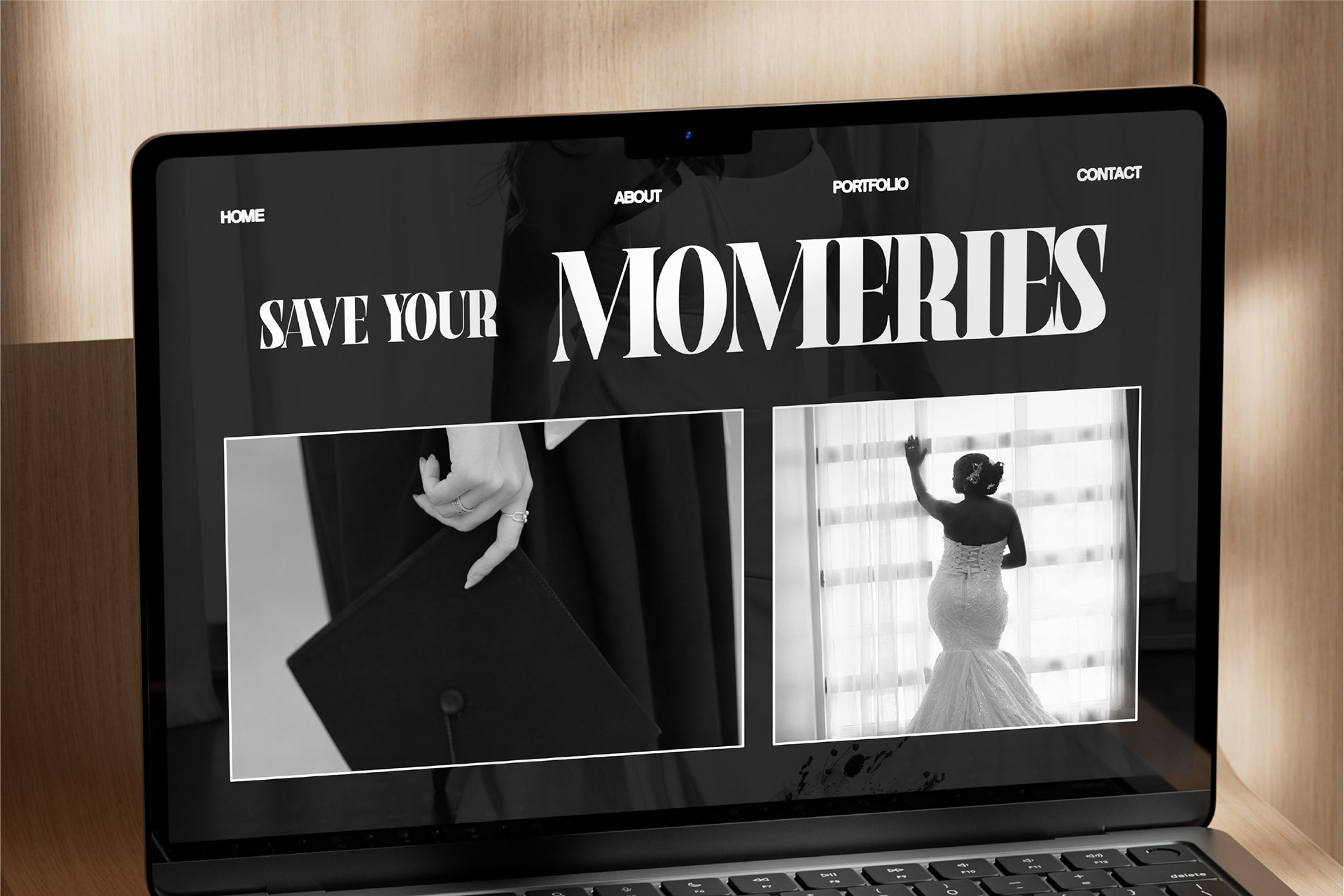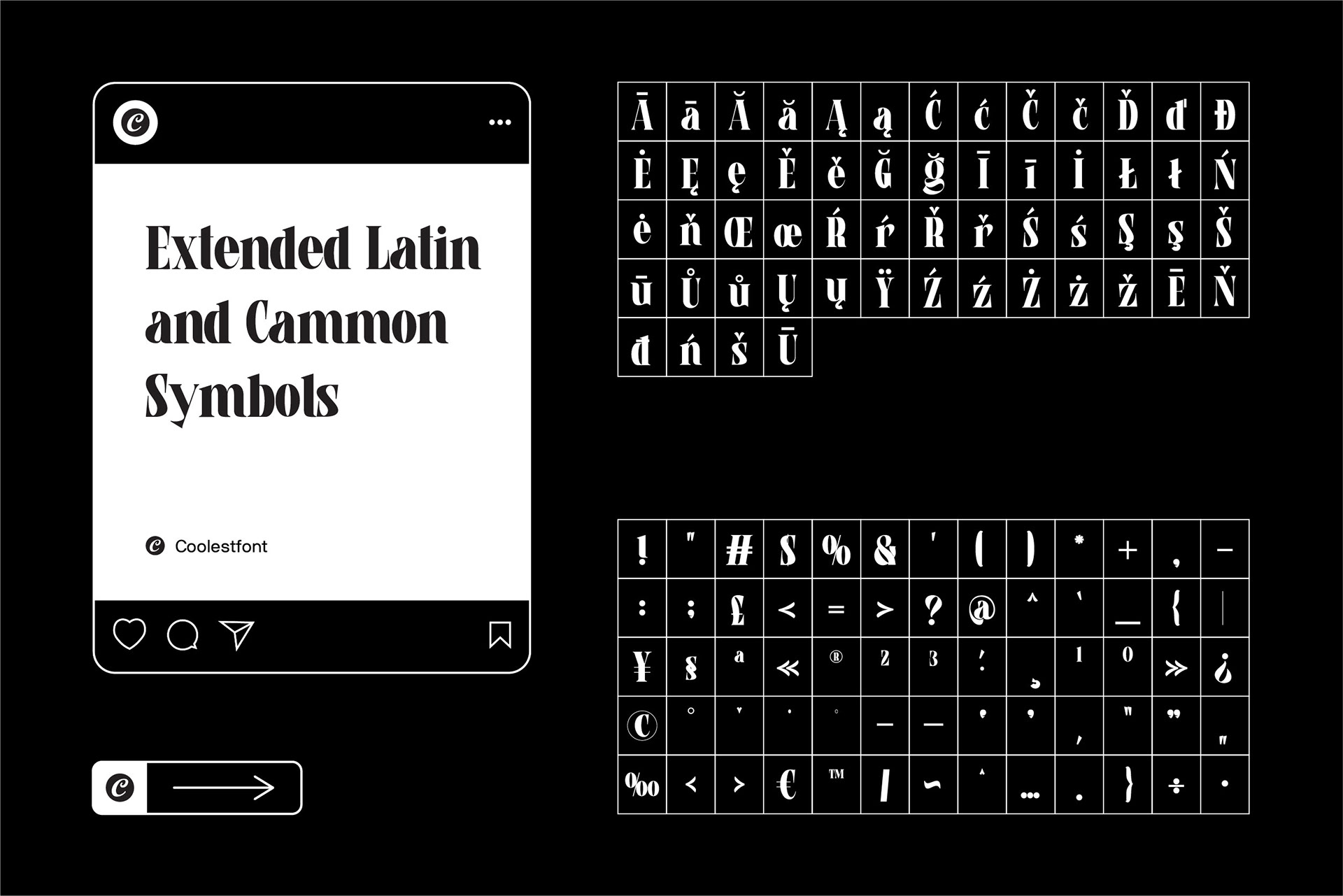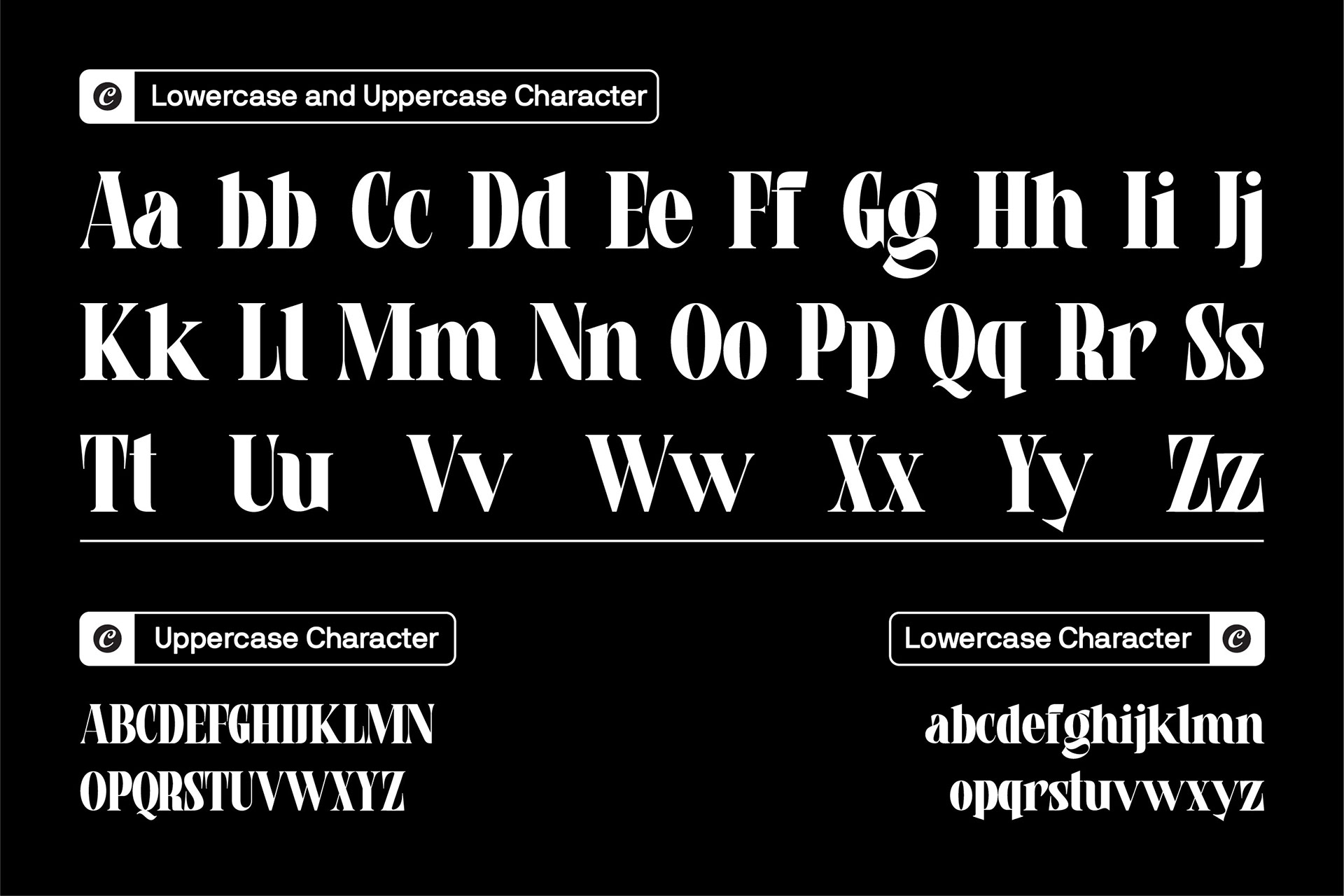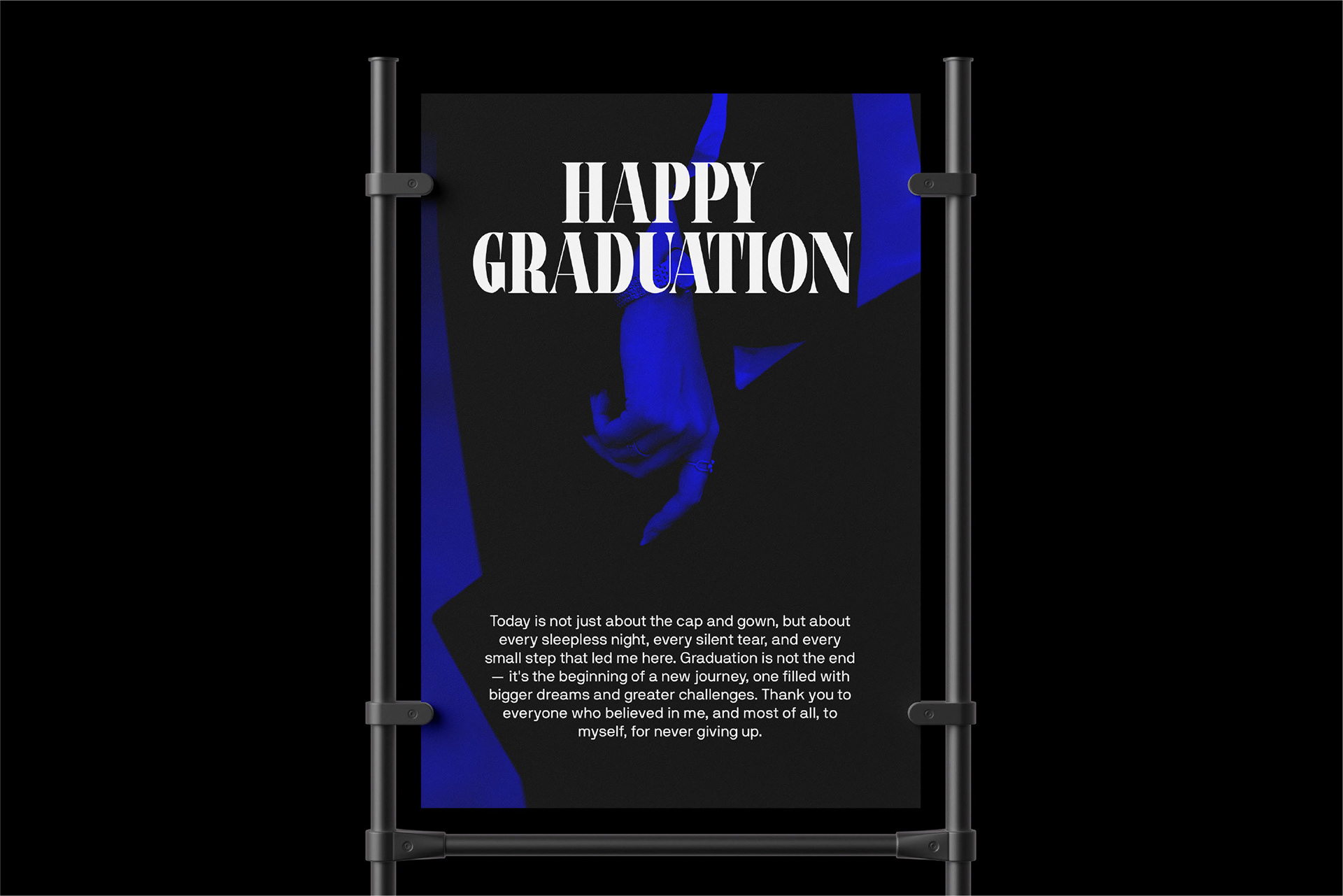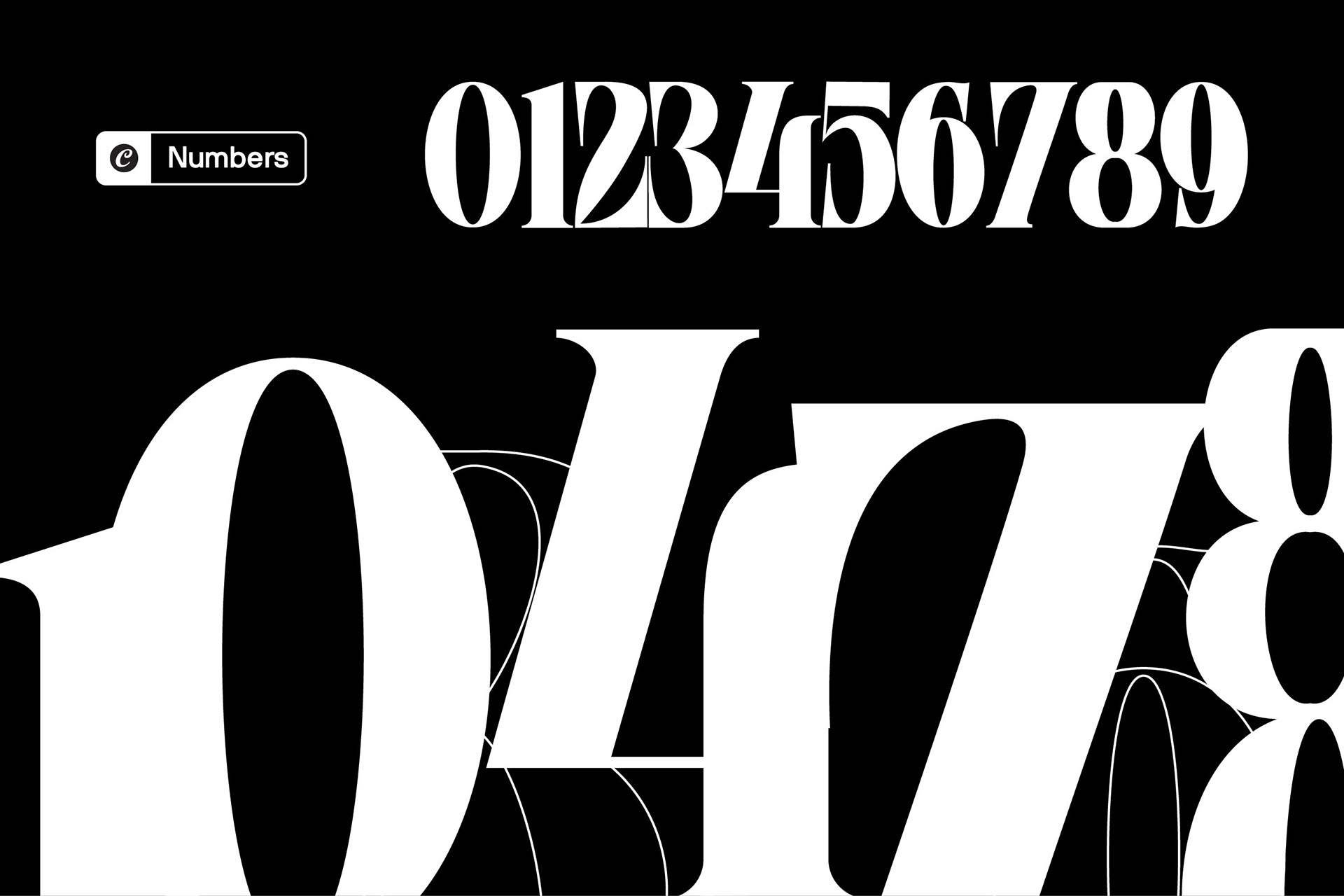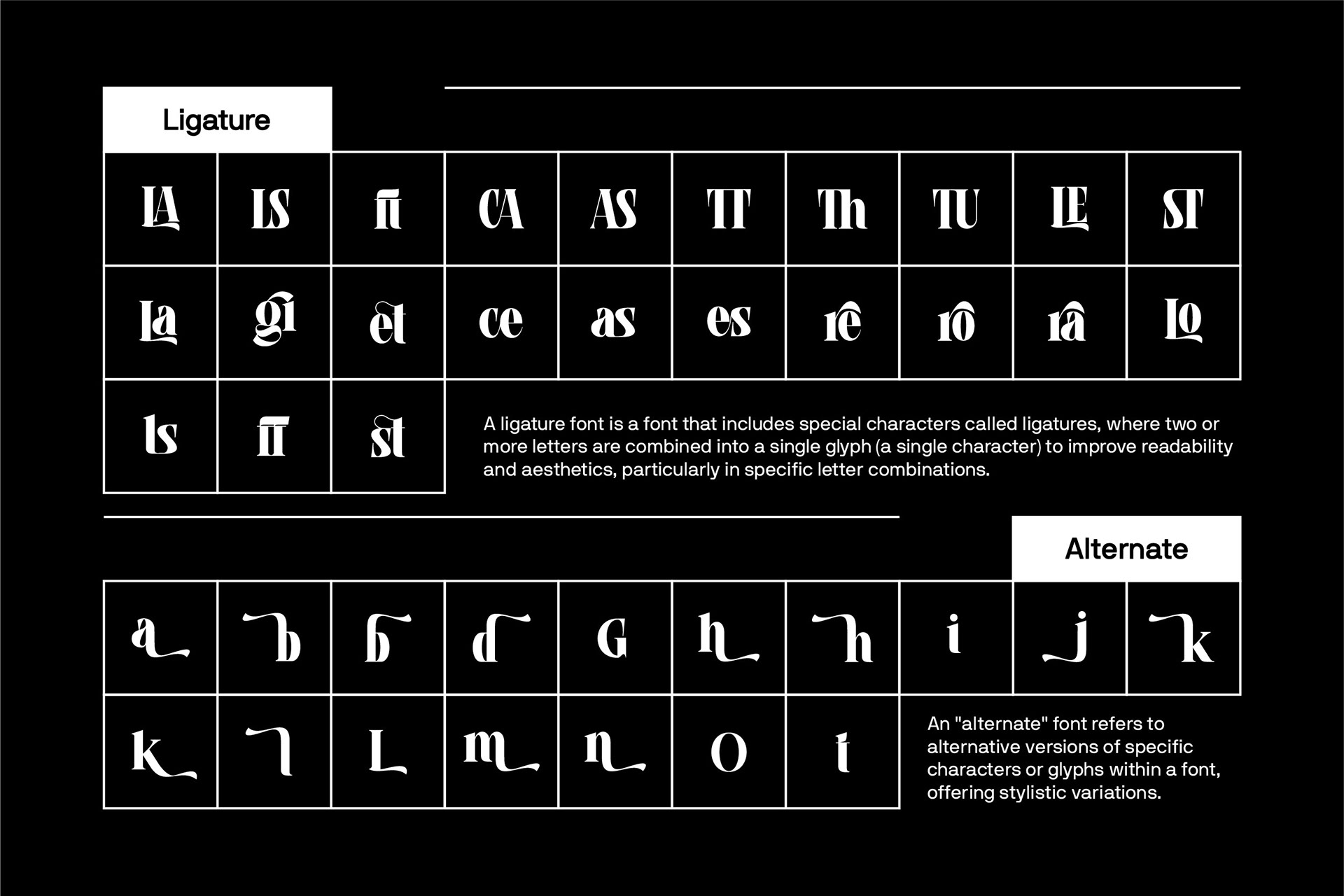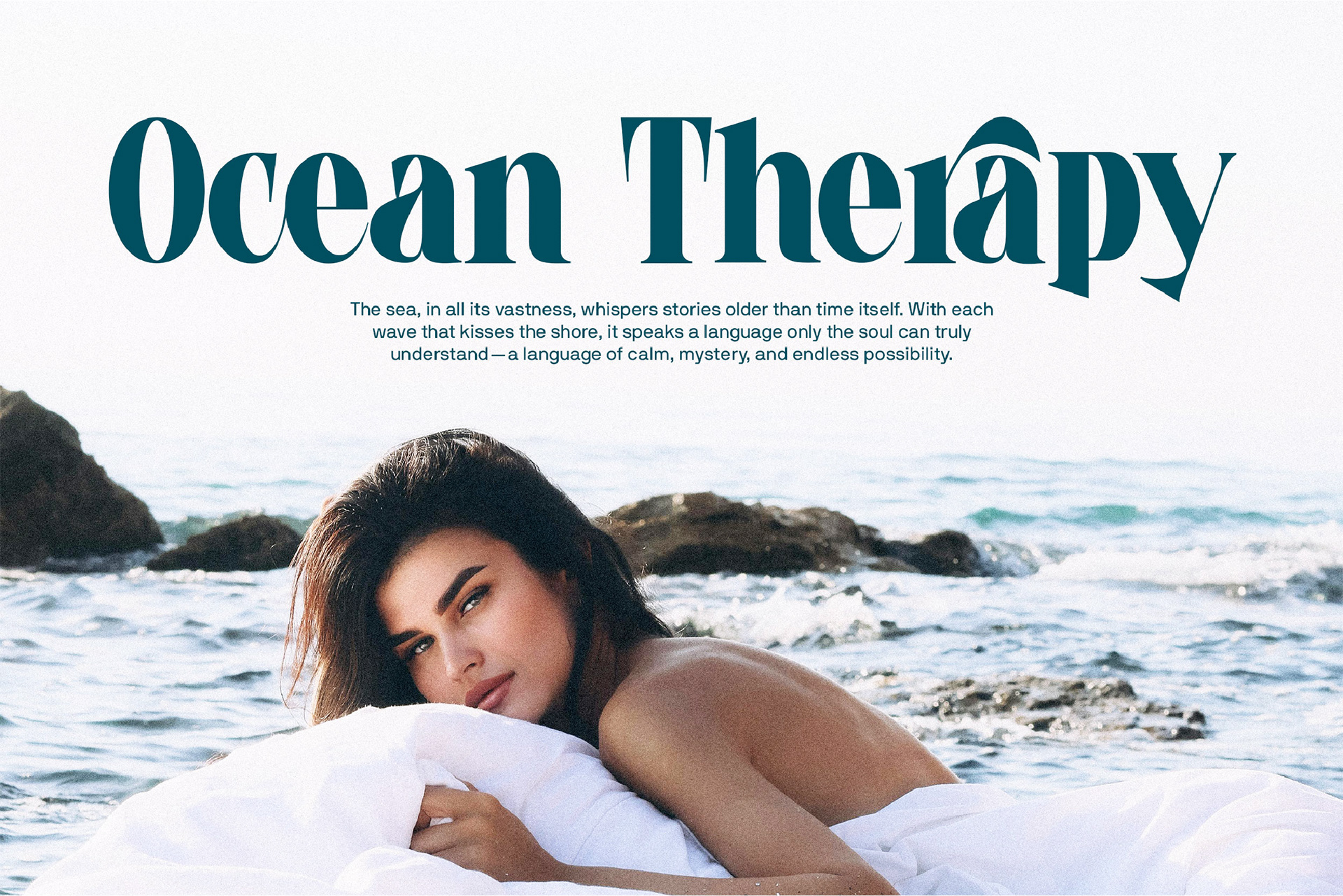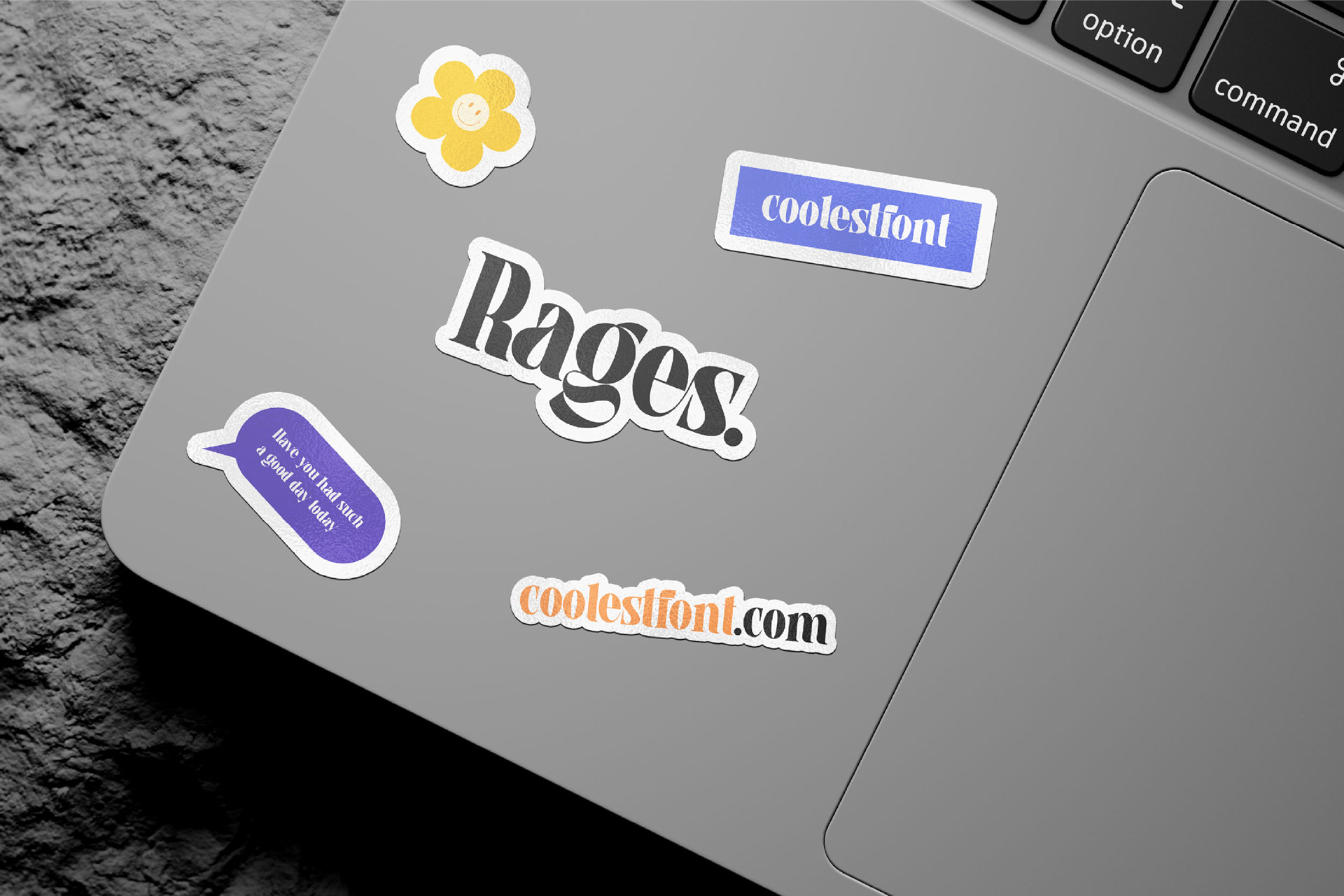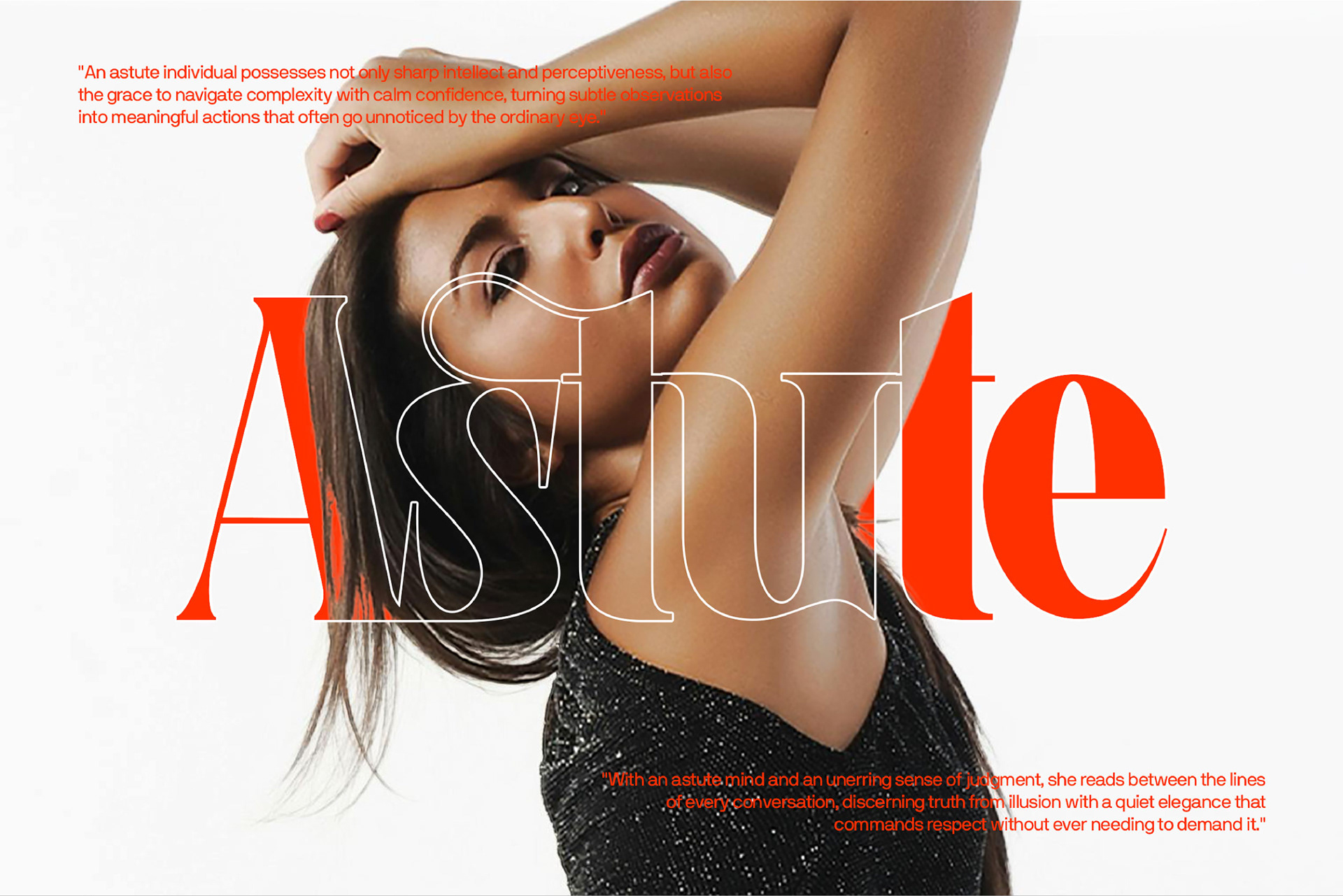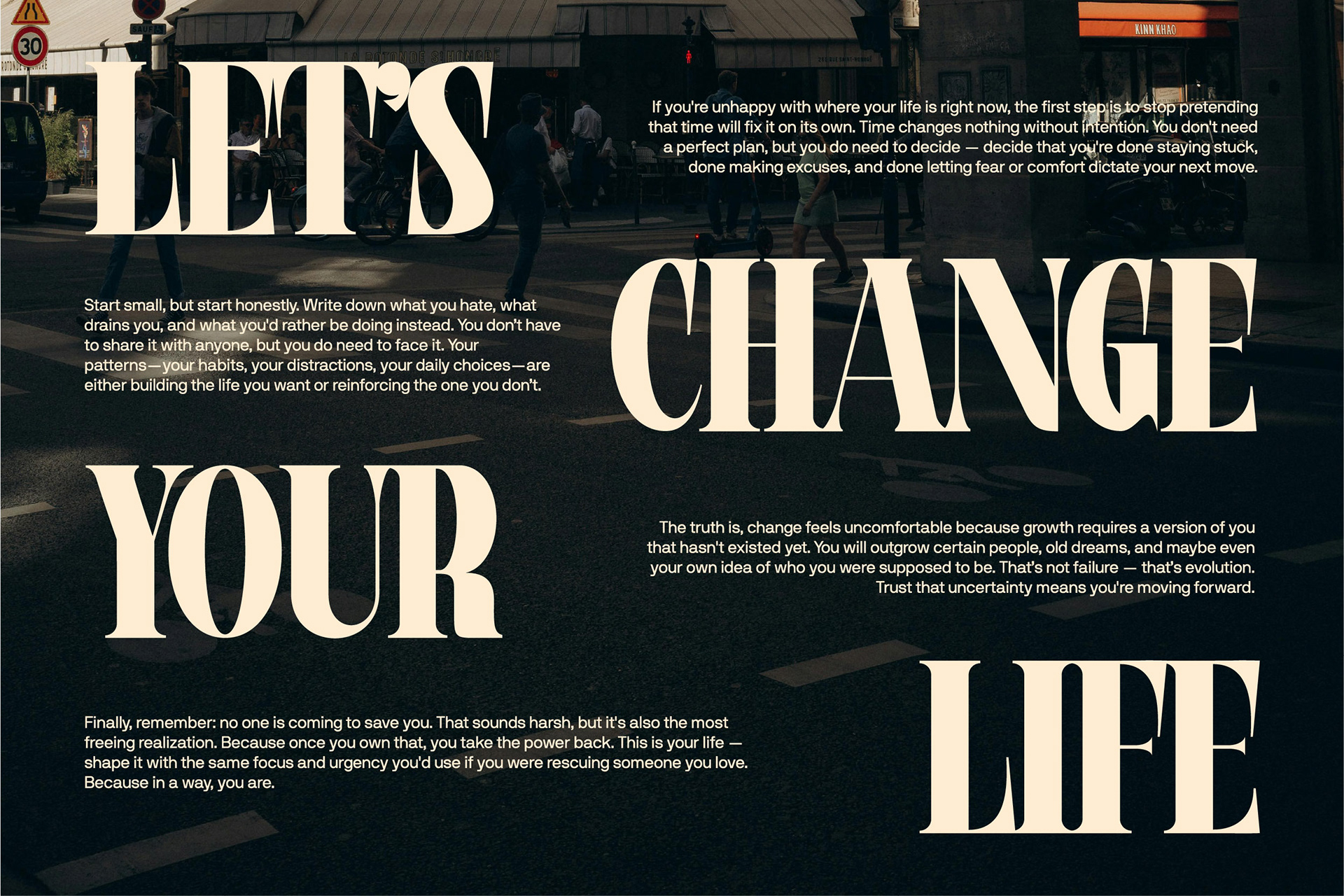
Rages Modern Serif Font
Elegant • Stylish • Editorial
Rages is a modern serif font designed with a perfect blend of elegance and visual strength. With its high contrast strokes, refined curves, and graceful ligatures, Rages brings a unique identity to any project.
It was created for designers who seek a font that’s both aesthetically pleasing and highly functional ideal for branding, fashion, editorials, and luxury packaging.
Rages was inspired by contemporary editorial design and high-fashion visuals. It offers clean, structured letterforms that maintain a creative and expressive edge.
Perfect for:
- Branding & Logo Design
- Editorial Magazines & Layouts
- Fashion Campaigns
- Product Packaging
- Wedding Invitations
- Website Hero Text & UI Headers
- Book Covers & Posters
- and other Designs